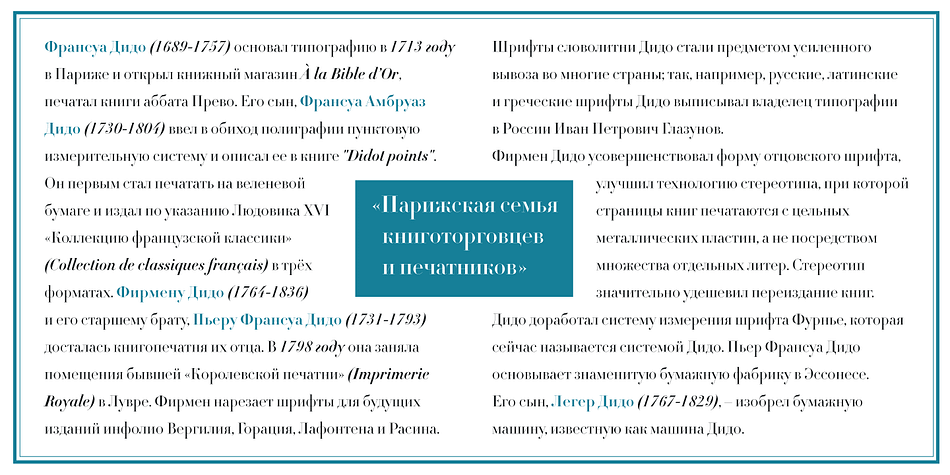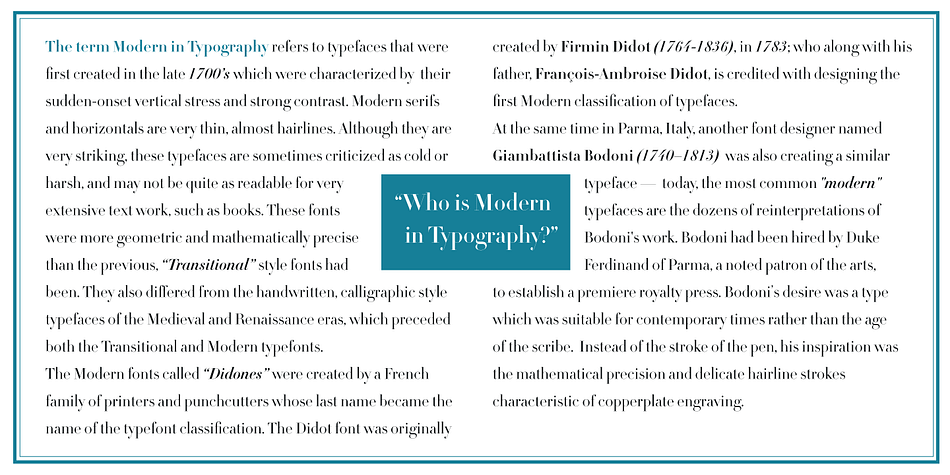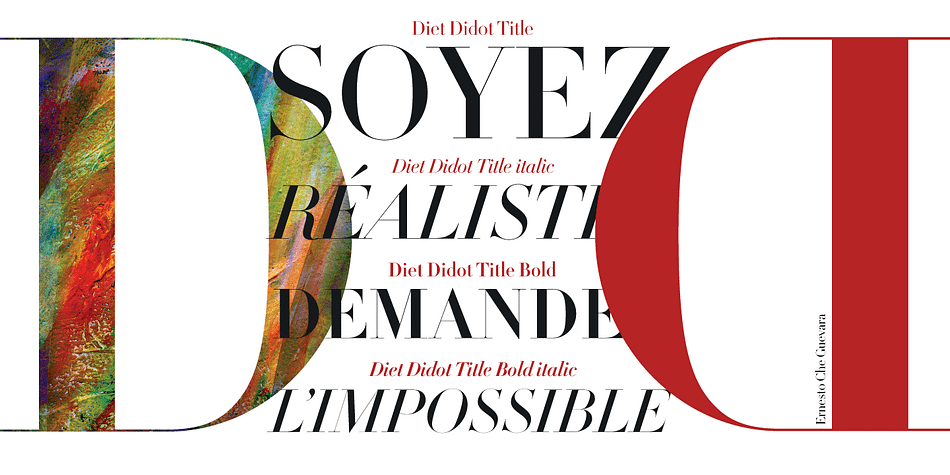
Designed by Chekulaev Alexey, DietDidot is a serif font family. This typeface has nine styles and was published by ParaType.
The typeface was designed at Double Alex Font Studio by Alexey Chekulaev in 2006 based on Dido by Firmin Didot, 1799.